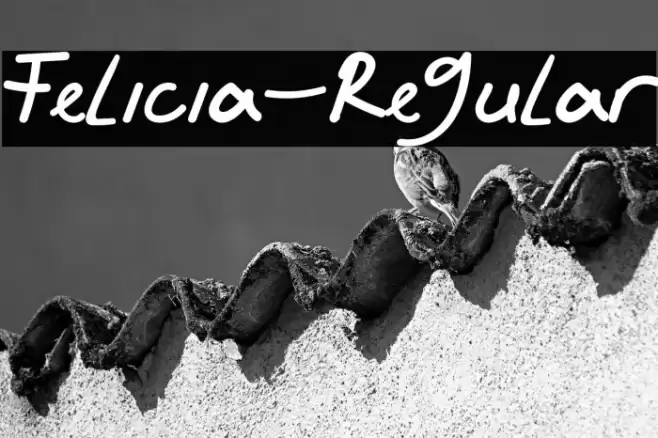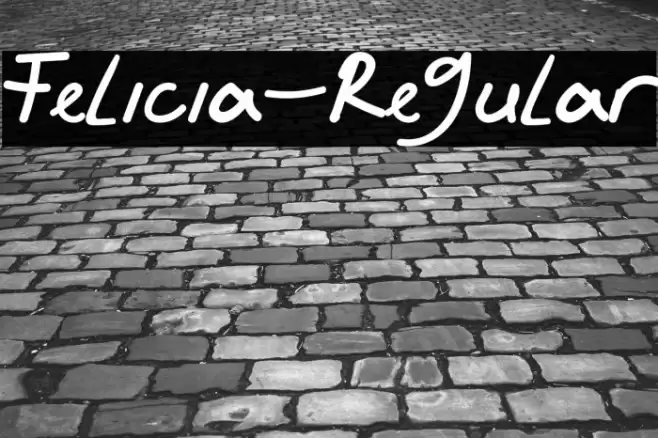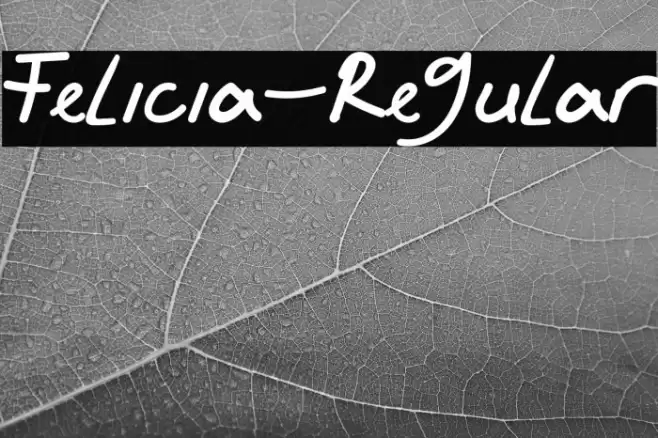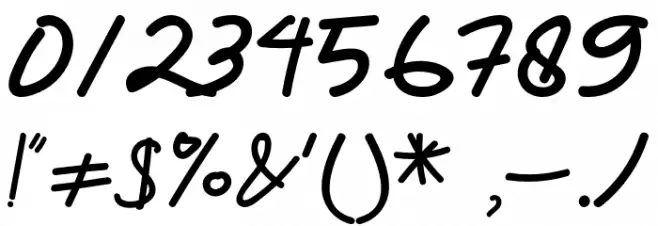
Felicia-Regular Font
Felicia-Regular Description
This font exudes a playful and casual handwritten style, characterized by its fluid and dynamic strokes. The letters are slightly slanted, giving it an informal and approachable feel. The uppercase and lowercase characters maintain a consistent style, with rounded edges and a smooth flow. The numbers and special characters are equally expressive, adding to the font's overall charm. This font is perfect for projects that require a personal touch, such as greeting cards, invitations, or creative branding. Its unique style makes it stand out, while still being legible and versatile.
A playful, casual handwritten font with fluid strokes and a dynamic style from Regular fonts.
- Font: Felicia-Regular
- Proposed Projects: Ideal for greeting cards, invitations, creative branding, and personal projects.
- Overall Style: Casual, Playful
- Use Case: Headlines, Logos, Invitations